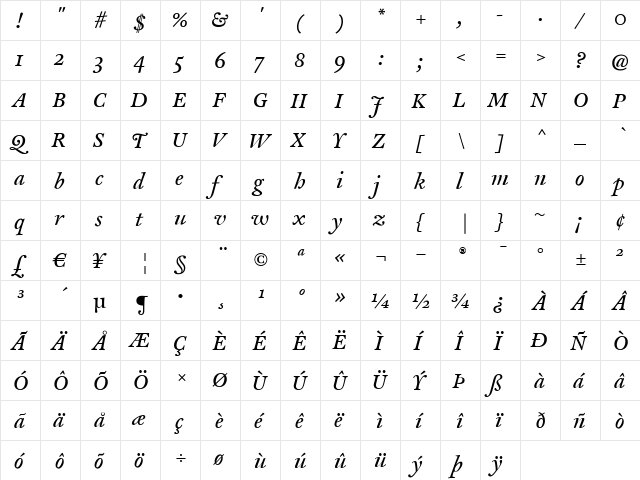
CliffordNine Italic
Design Context for CliffordNine Typeface
CliffordNine takes a measured approach to typography — its balanced proportions and neutral character make it a reliable workhorse for both digital and print work. Its italic angle brings a sense of urgency and motion to the letterforms.